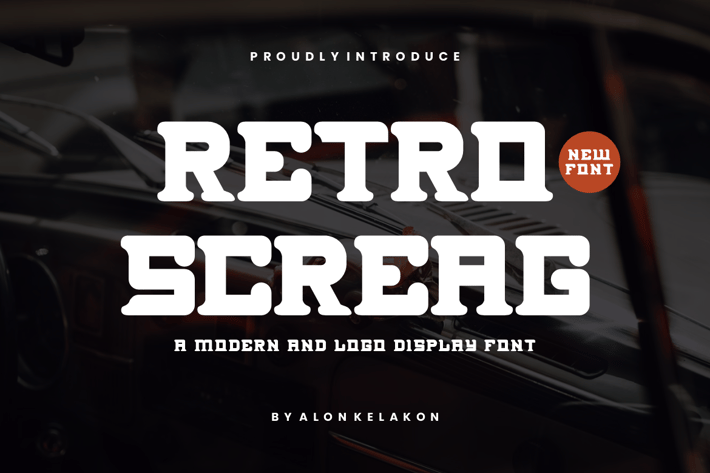
Retro Screag - Logo Display Font
Retro Screag - Logo Display Font Font is unique . Ready to use for your design like labeling, movie sceen, poster, movie title, gigs, album covers, logos, and much more.